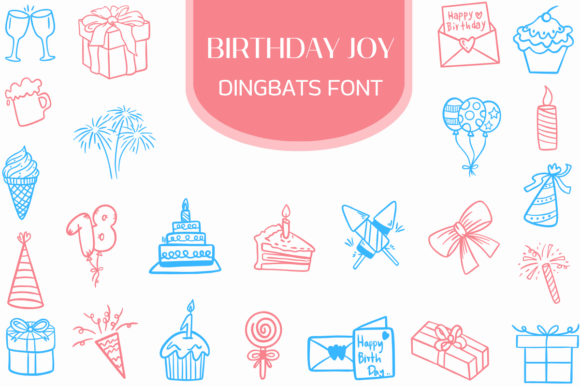
The Birth of Birthday Joy: A Font that Brings Happiness to Your Designs
I still remember the time I was working on a birthday card project for a client, and I just couldn’t find the right font to match the playful and celebratory vibe of the design. I tried countless fonts, but none of them seemed to capture the essence of joy and festivity that I was looking for. That’s when I stumbled upon Birthday Joy, a cute dingbats font that instantly brought a smile to my face. In this article, I’ll share my experience with Birthday Joy, and show you can use it to add a touch of whimsy and fun to your designs.
An Honest Review of Birthday Joy
- ✨ Cute and playful design: Birthday Joy is a beautifully crafted dingbats font that features adorable illustrations of birthday-themed icons, such as cakes, balloons, and confetti.
- ✅ Easy to use: The font is incredibly easy to use, even for those who are new to working with dingbats fonts.
- 🎉 Versatile: Birthday Joy can be used for a wide range of design projects, from birthday cards and invitations to social media graphics and party decorations.
While Birthday Joy is an amazing font, there are a few things to keep in mind:
- 🤔 Limited character set: As a dingbats font, Birthday Joy has a limited character set, which means it’s not suitable for body text or long paragraphs.
- ⚠️ May not be suitable for formal designs: Birthday Joy is a playful font that’s best suited for informal and celebratory designs. It may not be the best choice for formal or professional projects.
The Designer Inspiration Behind Birthday Joy
Birthday Joy was designed by a talented font designer who wanted to create a font that would bring joy and happiness to designers and their clients. The designer was inspired by the magic of birthdays and the importance of celebrating special moments in life.
| Font Name | Birthday Joy Font |
| Author | Heartcraft Atelier |
Q: What is Birthday Joy?
A: Birthday Joy is a cute dingbats font that features adorable illustrations of birthday-themed icons.
Q: Is Birthday Joy easy to use?
A: Yes, Birthday Joy is incredibly easy to use, even for those who are new to working with dingbats fonts.